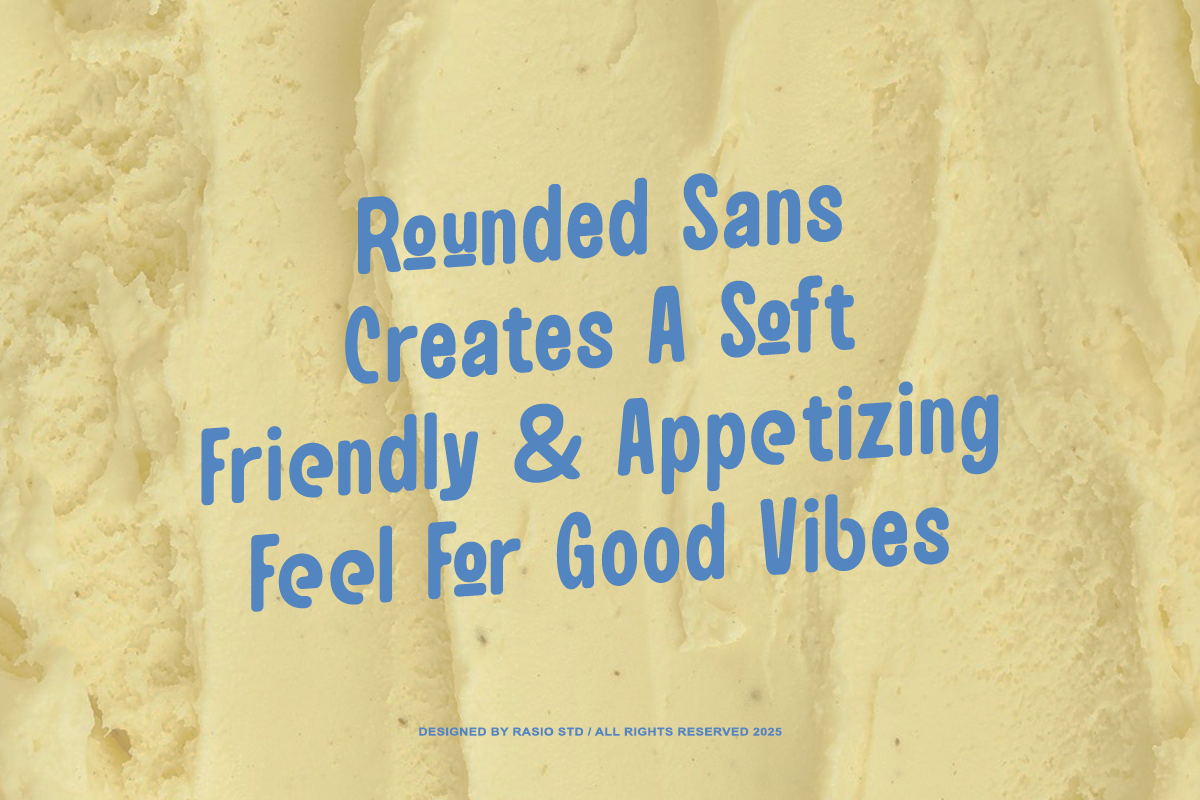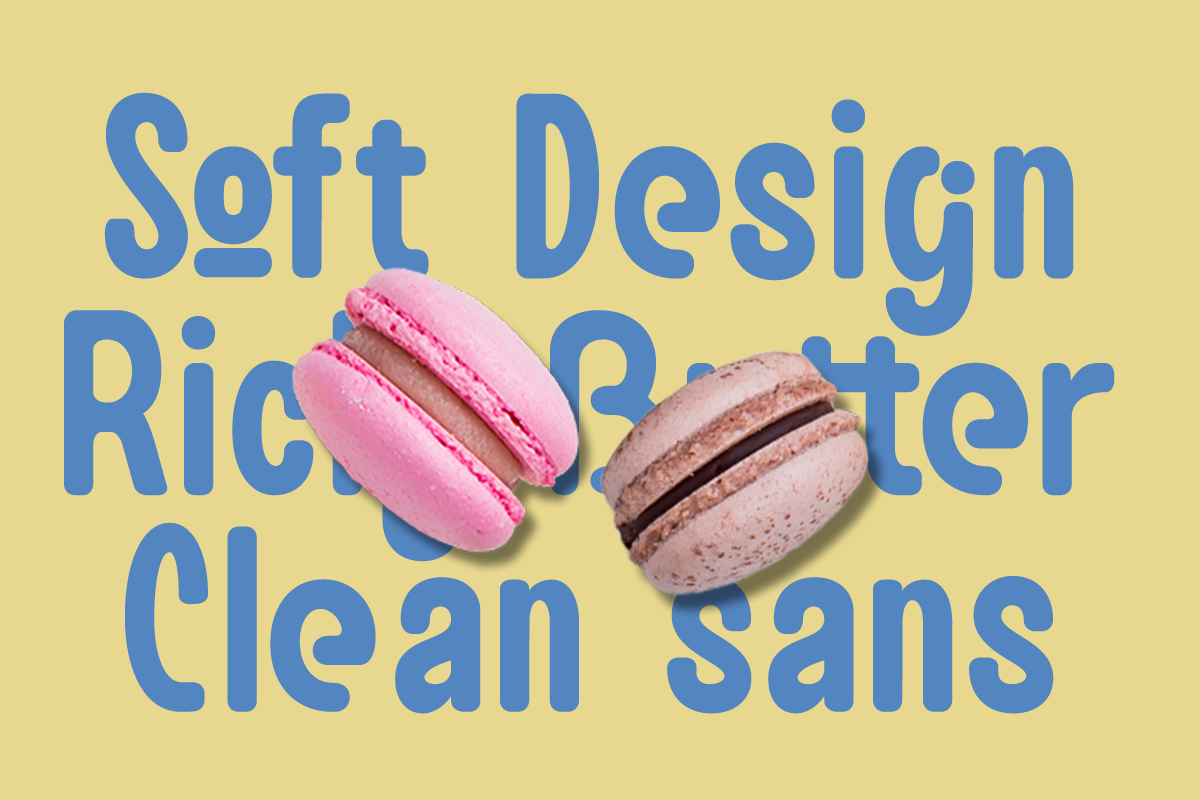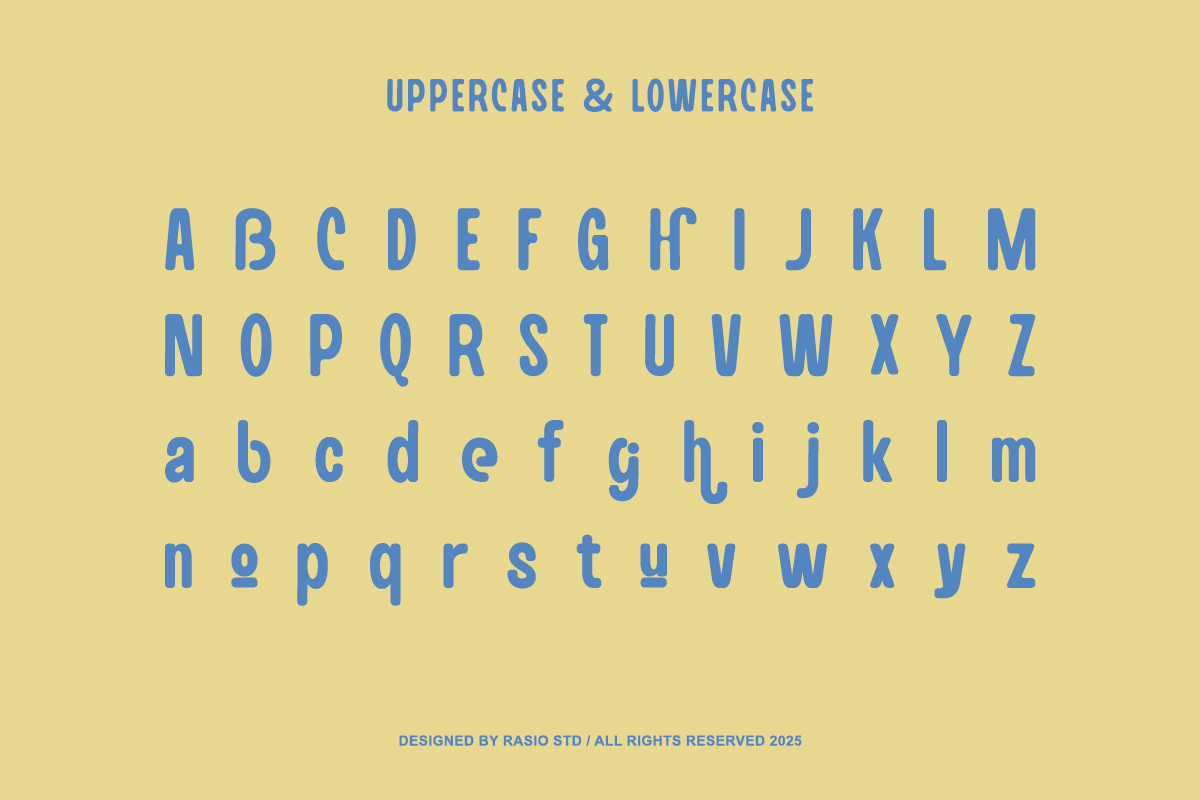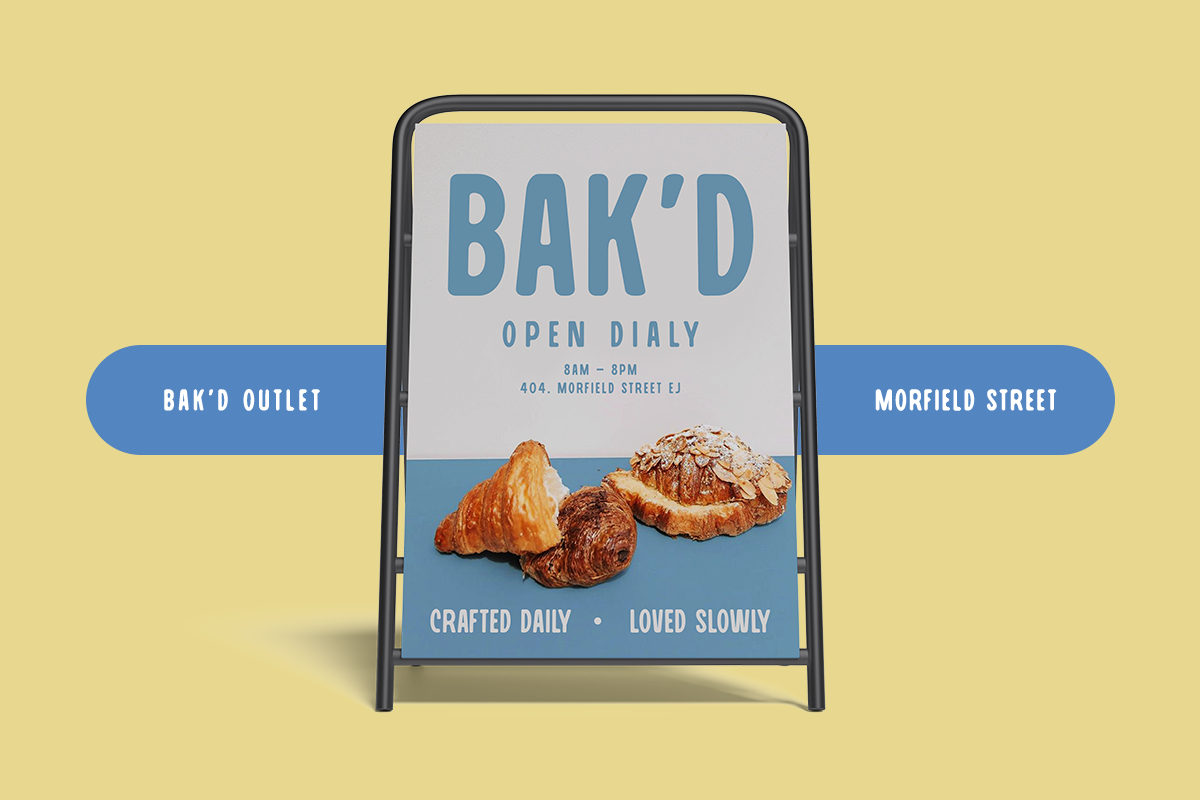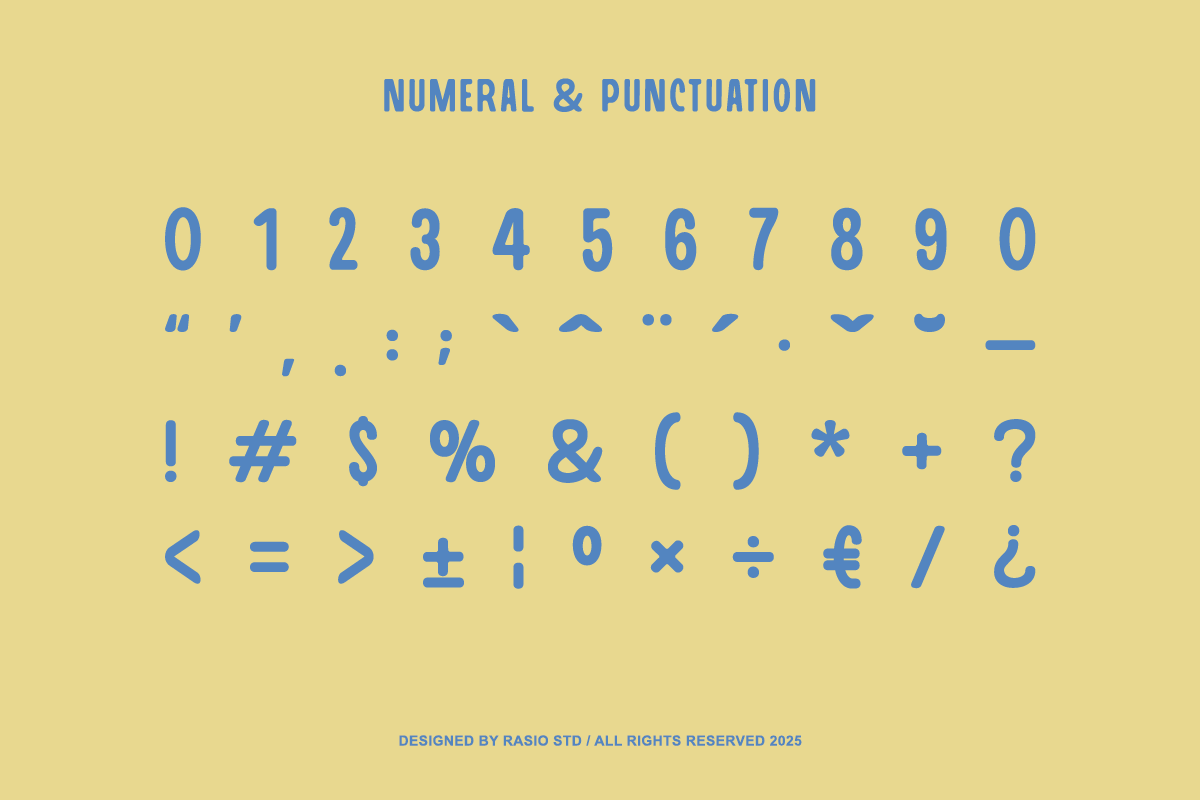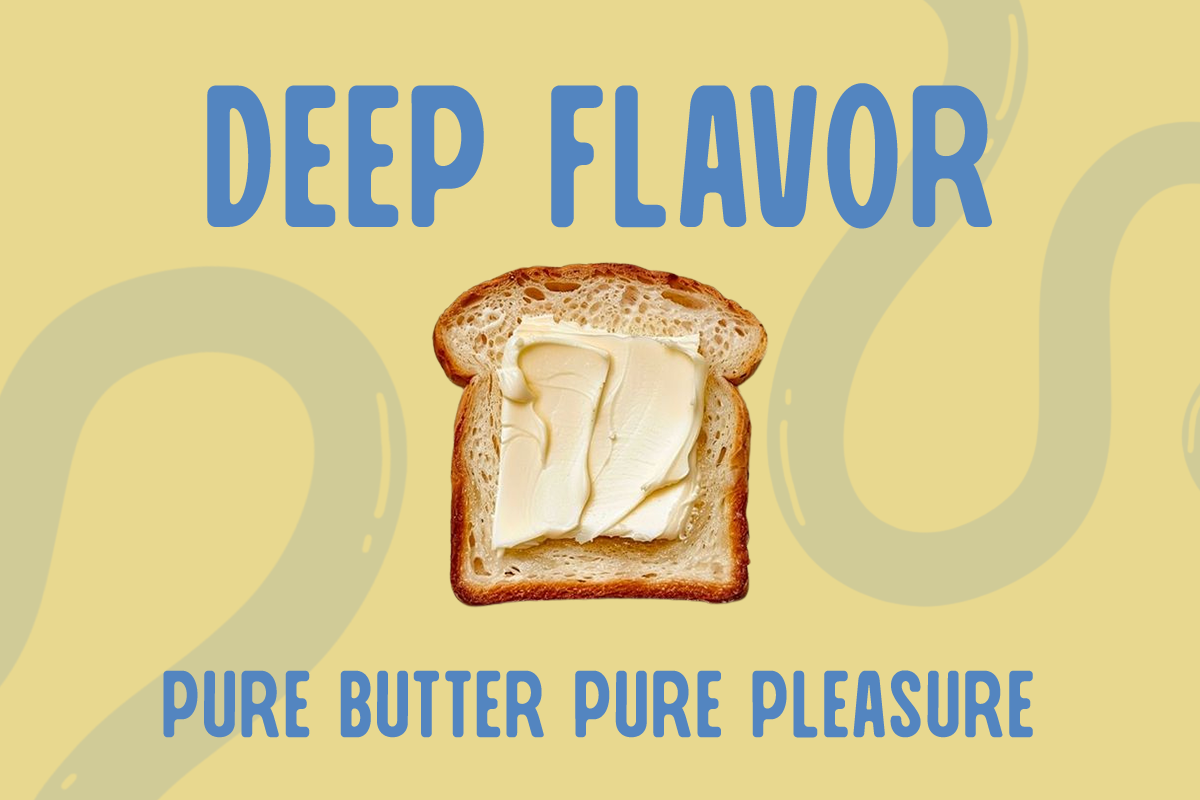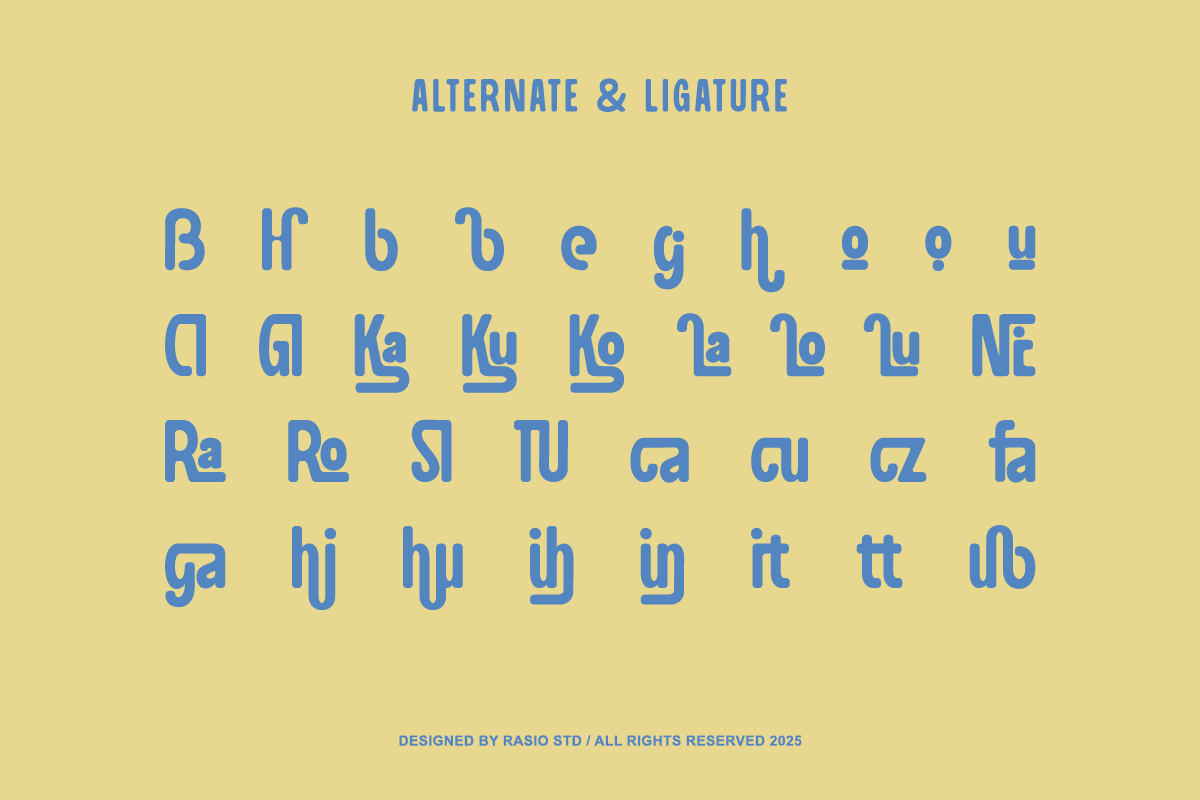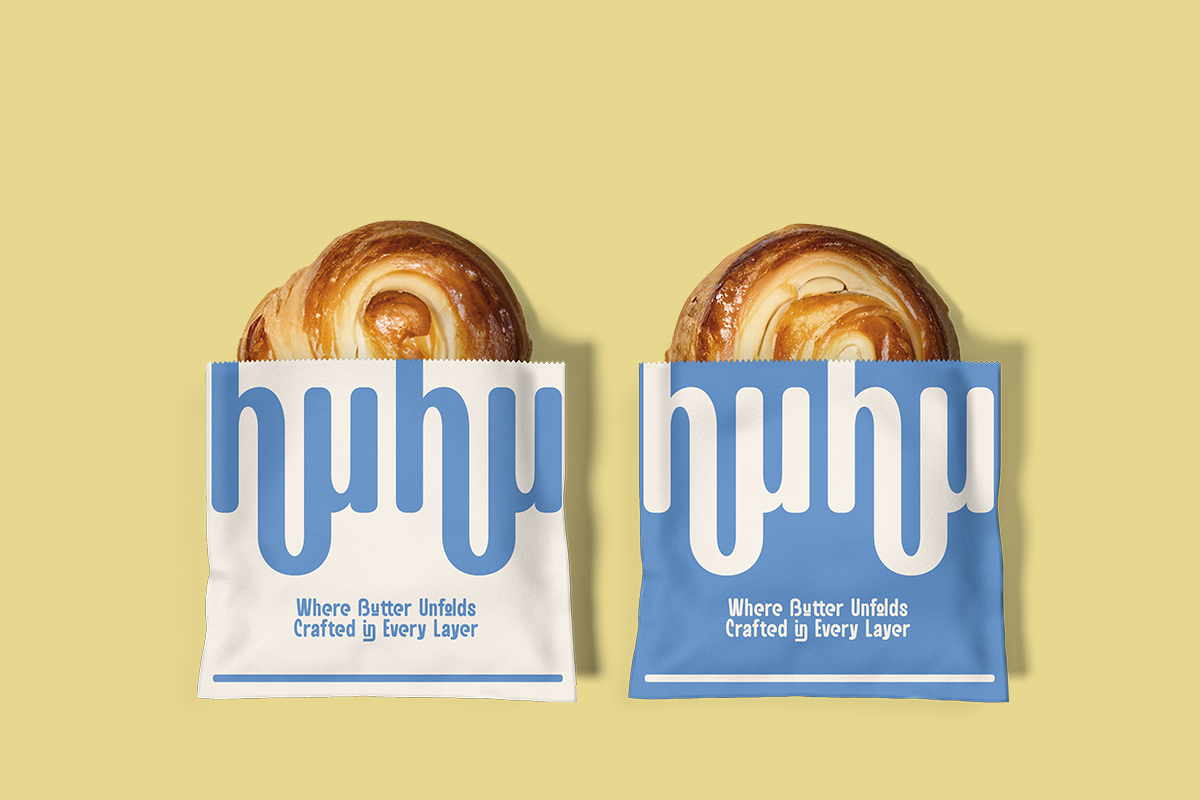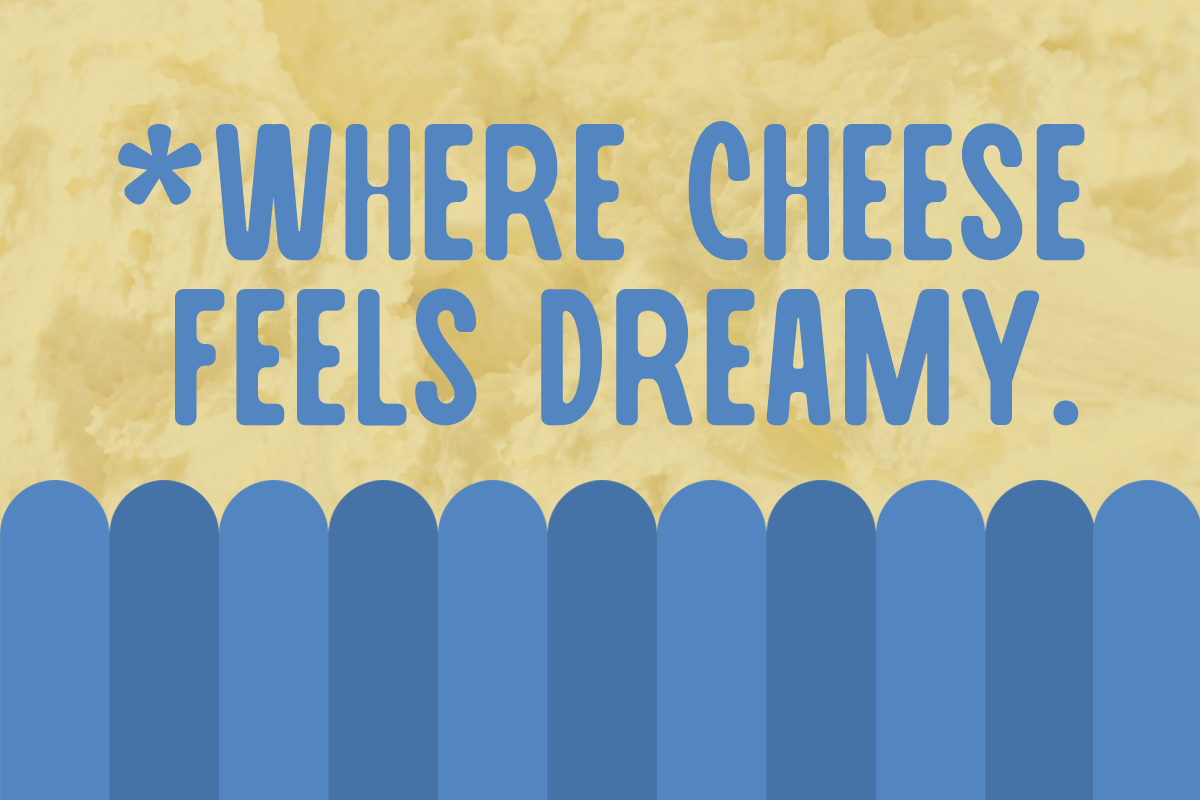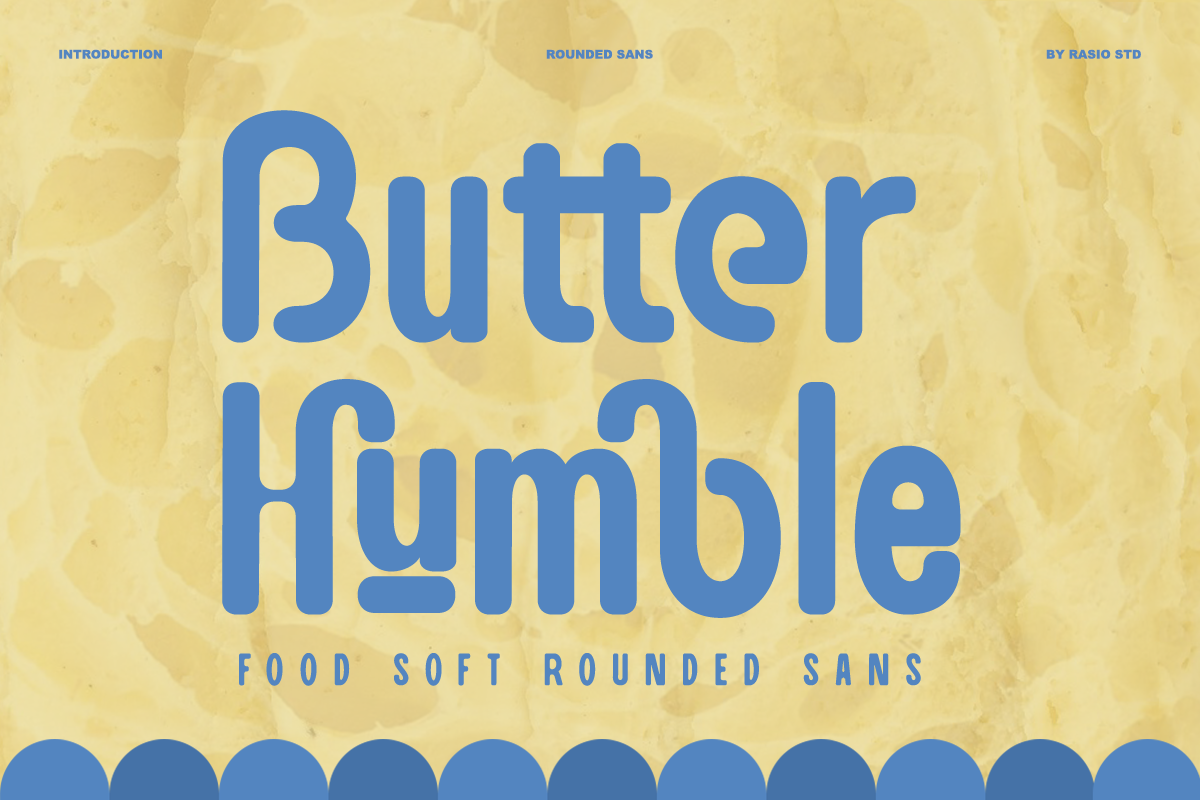
Butter Humble Food Rounded Sans Font
Butter Humble is a soft rounded sans serif font with smooth curves, gentle proportions, and a friendly visual tone. The letterforms feature rounded terminals and balanced geometry, creating a warm and approachable appearance while remaining clean and readable. It includes uppercase, lowercase, numbers, and punctuation with consistent spacing and weight. This font is designed for display and short text usage, not recommended for long body paragraphs.
Butter Humble is perfect for food and beverage branding, packaging design, café and restaurant visuals, product labels, and menu headlines that require a soft and inviting tone. It works well for children-friendly branding, lifestyle products, social media content, posters, short promotional copy, and creative headlines.
- Soft rounded sans serif design with friendly, approachable proportions
- Smooth curves and rounded terminals for a warm visual character
- Clean geometric structure softened to avoid rigid appearance
- Even stroke weight and consistent rhythm for clear readability
- Balanced spacing optimized for headlines, short text, and display use
- Brand identity systems that require a friendly, soft tone
- Food, beverage, and lifestyle packaging with aesthetics
- Café, restaurant, and product branding visuals
- Social media templates, promotional posts a warm feel
- Creative projects, posters that favor rounded typography
Soft, friendly, and inviting Butter Humble brings warmth to every message